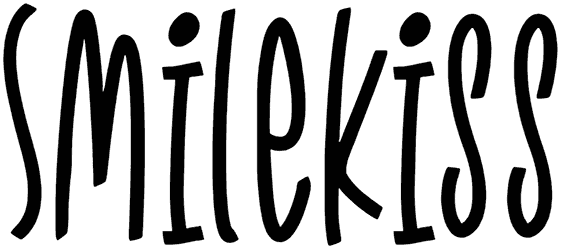
Smilekiss Font
There is no need to be worried about finding a good typeface for designing graphic content when you have access to our wonderful archive and a magical doodle font like Smilekiss.
Its characters are designed a little bit tilted and oblique, thus sharing a sense of grunge, disorder, dynamic, and personalization with the audience. It is a really versatile font, so you can include it in a wide range of artwork like street posters, graffiti, digital banners, and illustrations.